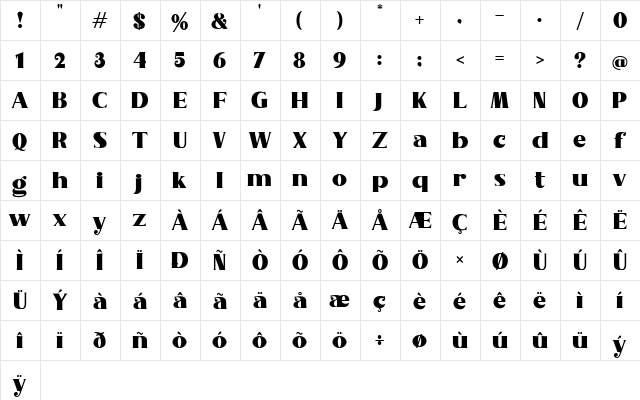
Nakone Demo Regular
Design Context for Nakone Demo Typeface
Nakone Demo is a composed and adaptable typeface that performs quietly and consistently across a wide range of design contexts.